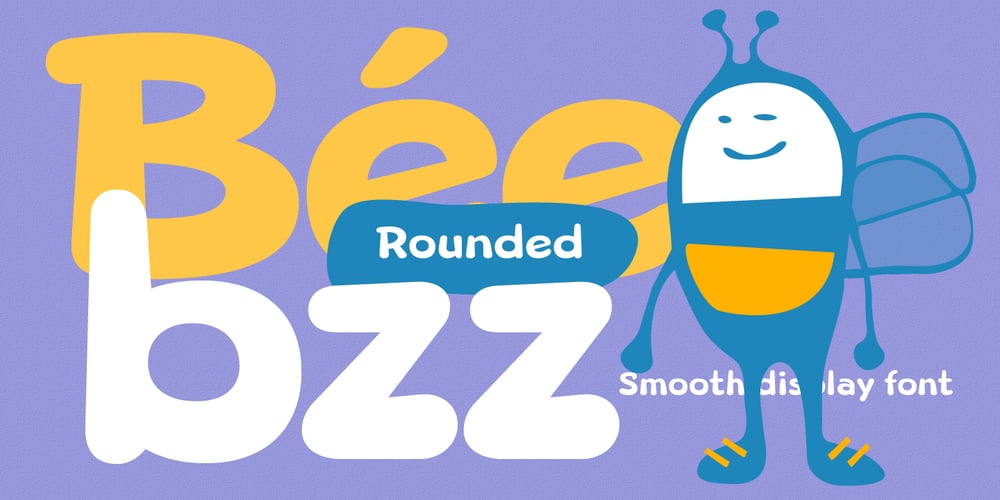
Beebzz Rounded Font Family was designed by Alexey Popov and published by Popskraft. Beebzz Rounded contains 7 styles and family package options. Everybody loves black colour, strict stylish and elegant shapes. We strive to be perfect. Right? But… Do not you think that we have lost something? Maybe child’s spontaneity? The Beebzz Rounded font brings you back to those perfect times, when there was no need to be serious, when the whole world was not so serious. Beebzz Rounded is an original font family designed for headlines, titles and subtitles. It has his own unique style in expressive, perfectly condensed forms, inspired by child calligraphy and strong geometric typefaces. Beebzz Rounded is a font family that is ideal for display, text, print, branding, signage, and also for user interfaces, mobile devices, especially web design creation, with a set of optimal characters for your design in any layout.